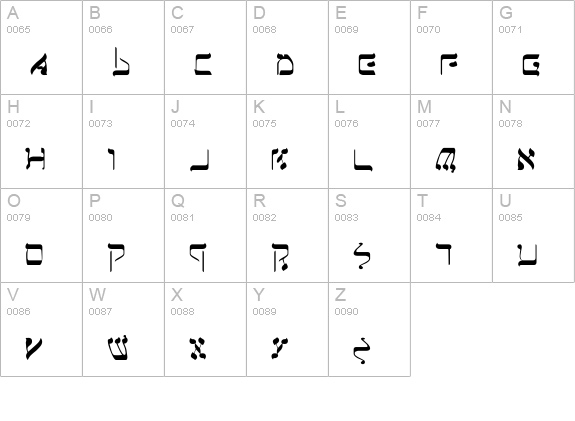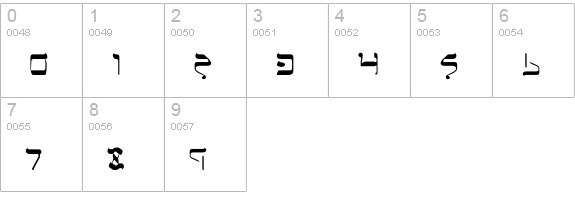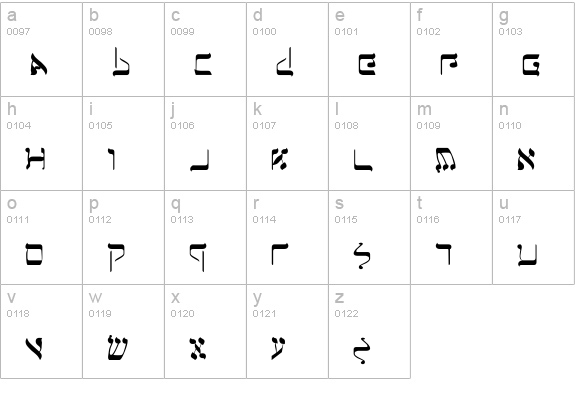
Jerusalem Font Details
The Jerusalem font is a stunning display typeface that combines elegance with a touch of sophistication. Its intricate details and artistic flourishes make it perfect for adding a touch of luxury to any design project. Whether you're creating invitations, posters, or branding materials, the Jerusalem font will elevate your work to a whole new level. And the best part? The Jerusalem font is completely free to download at FontsMarket.com. That's right, you can access this beautiful typeface at no cost, making it a valuable addition to your font collection. Don't miss out on the opportunity to enhance your designs with the timeless beauty of the Jerusalem font. Download it today and let your creativity soar.